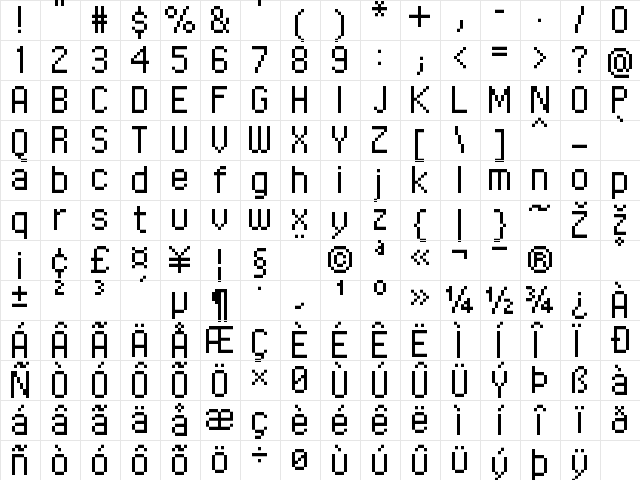
FFF Executive Regular
Design Context for FFF Executive Typeface
FFF Executive is a composed and adaptable typeface that performs quietly and consistently across a wide range of design contexts.